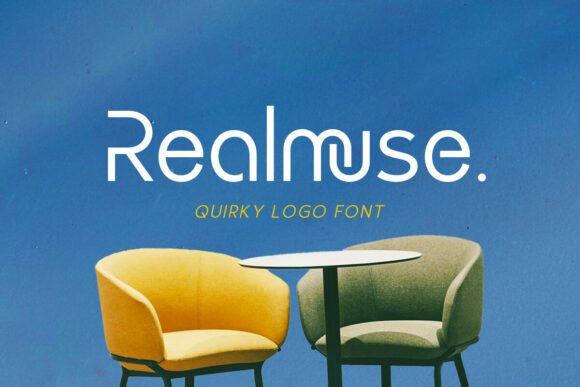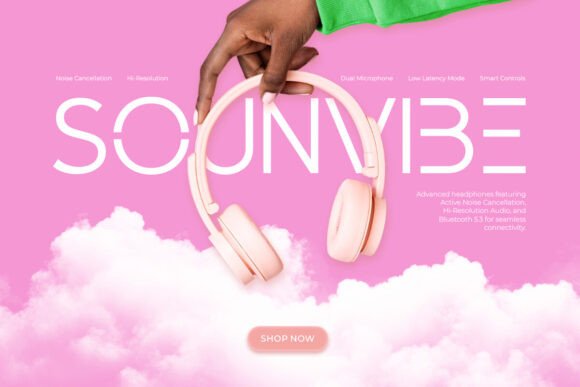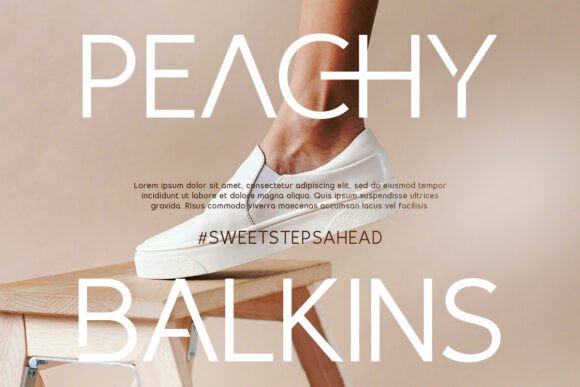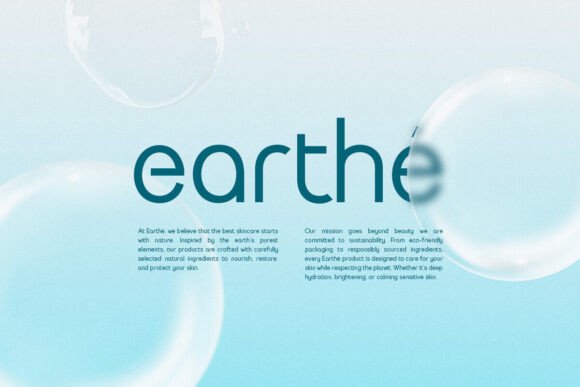
Realmuse Font: Modern Sans Serif for Logo Design & Creative Branding
About the Realmuse Font
Explore the possibilities with Realmuse Font, a font that offers both beauty and functionality. Realmuse is a quirky logo font based on sans serif. With unique rounded and minimalist look, you can make your logo looks more stunning and modern. This font also have stylish ligatures and stencil alternates that will make your project looks more attractive. You can use this font for branding, logo, and designs. This font also support multilingual.
Realmuse’s quirky yet minimalist nature makes it ideal for headlines, short-form text in logos and branding materials, and even eye-catching packaging designs. Its stylish ligatures add a touch of sophistication to short statements, but the rounded forms prevent it from being suitable for large bodies of text or UI elements where readability is paramount. Avoid using it for long paragraphs or anything requiring extensive text.
The font possesses a modern and friendly personality; think playful yet sophisticated. To complement this, pairing Realmuse with a clean sans-serif like Lato for body text or a classic serif like Garamond for a more traditional contrast would create balanced designs. A geometric sans-serif could also provide a striking juxtaposition.
Consider Realmuse for brands aiming for a youthful, approachable, yet refined image. Think lifestyle brands, creative agencies, or boutique businesses. Avoid using it for projects requiring a strong sense of authority or formality.
Realmuse Font Usage Examples
Realmuse Font Example